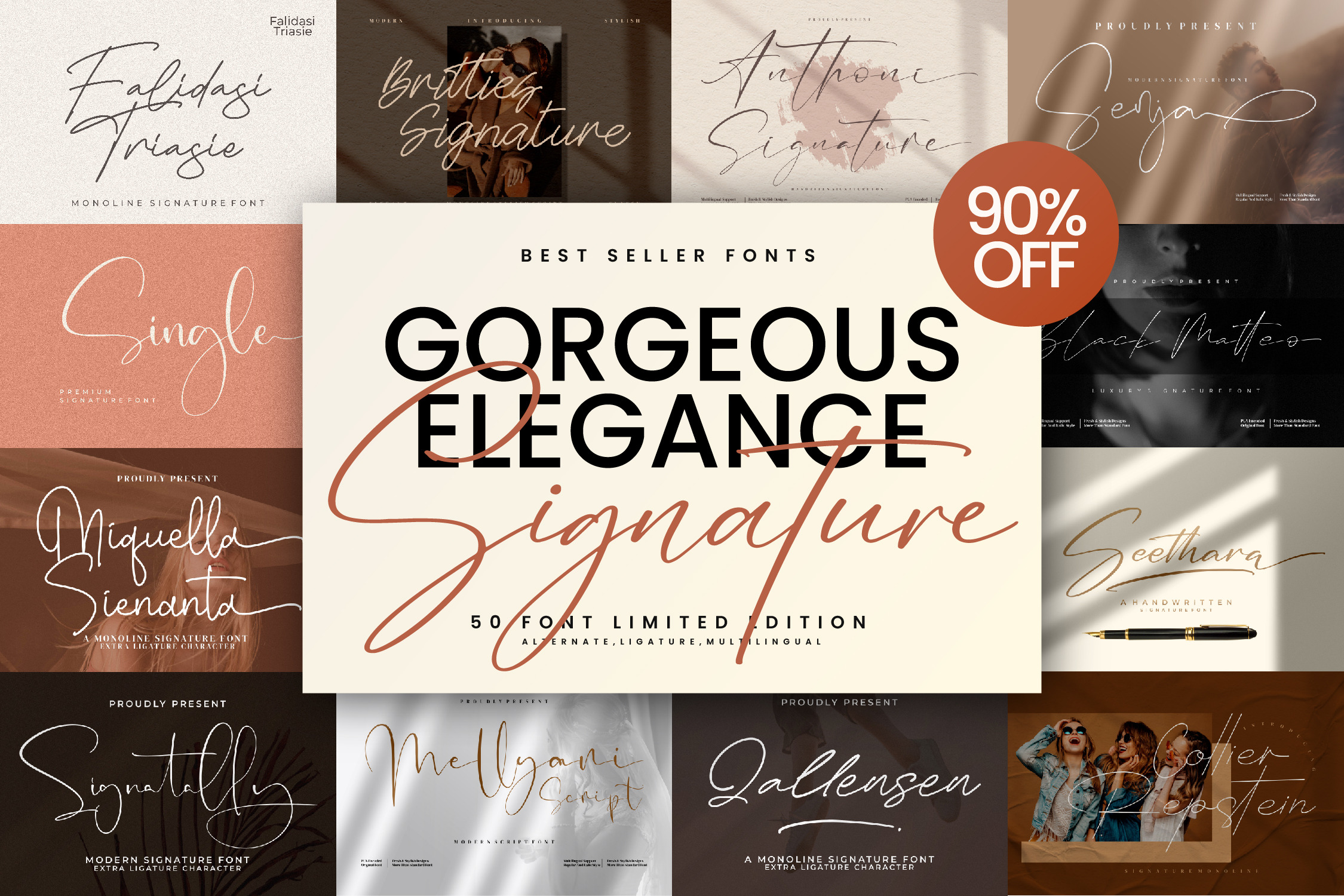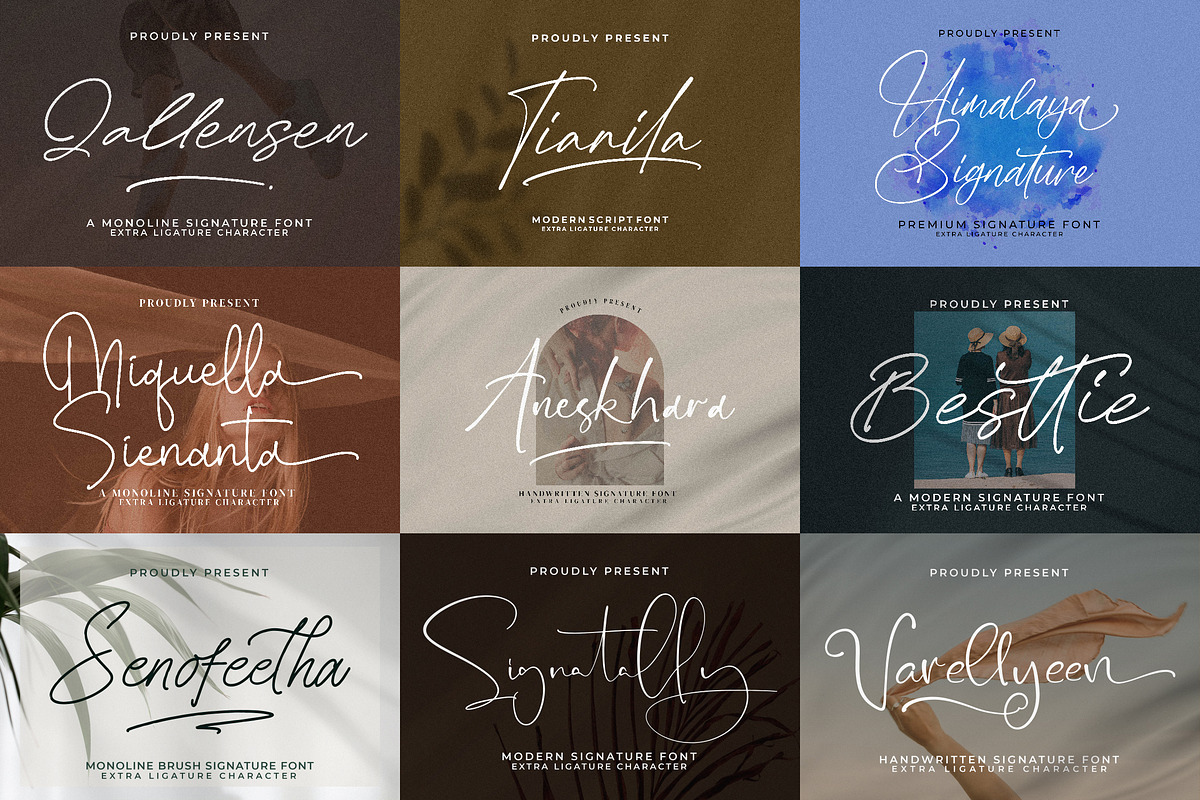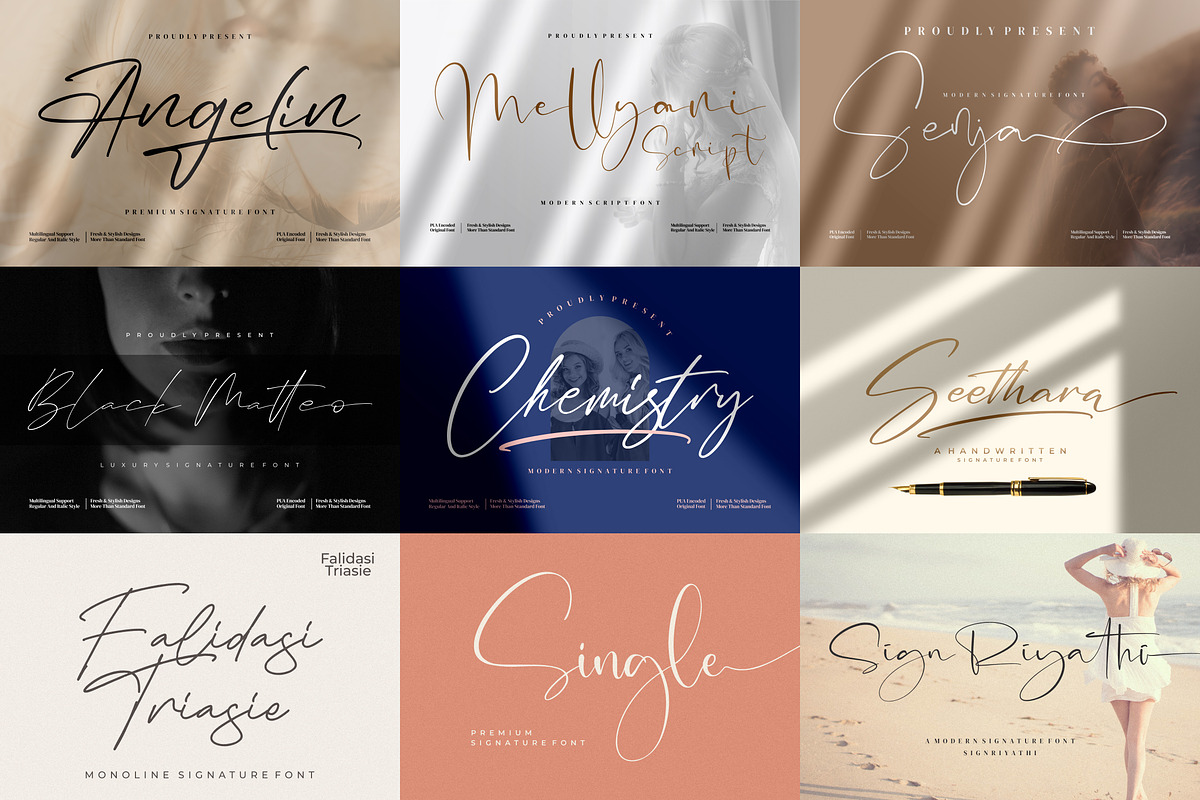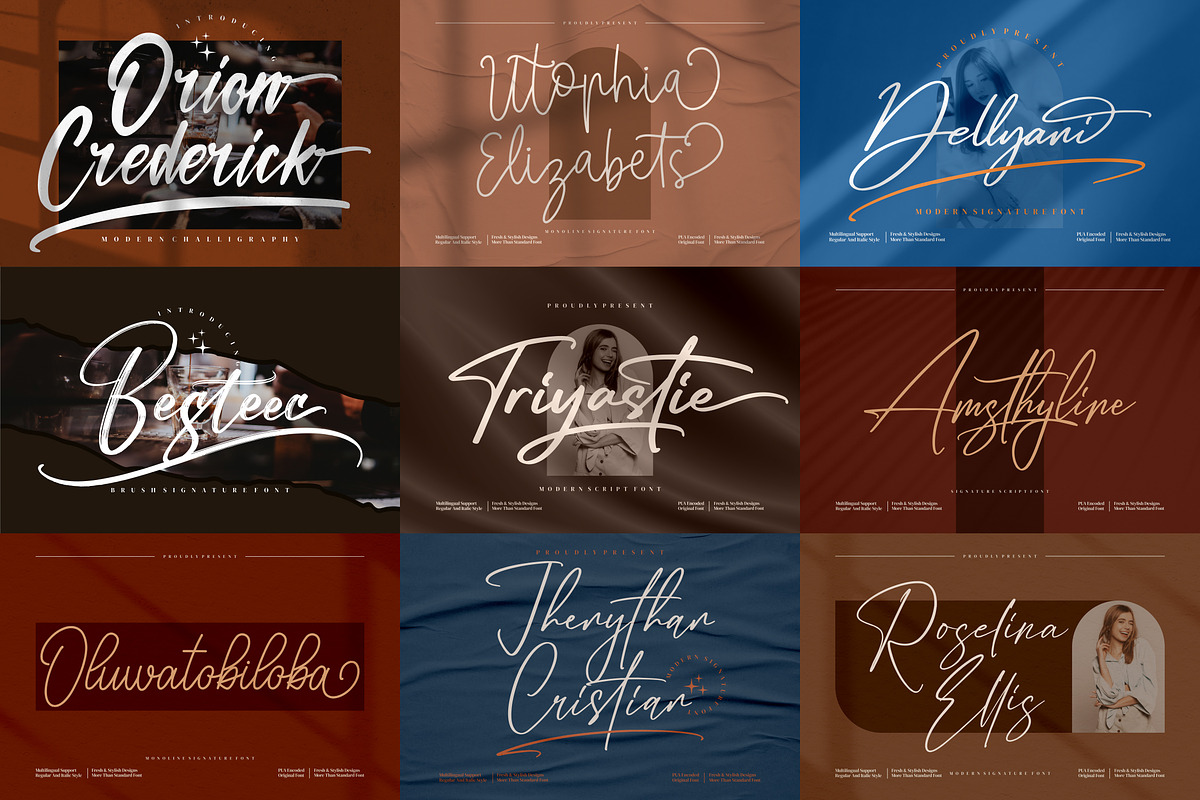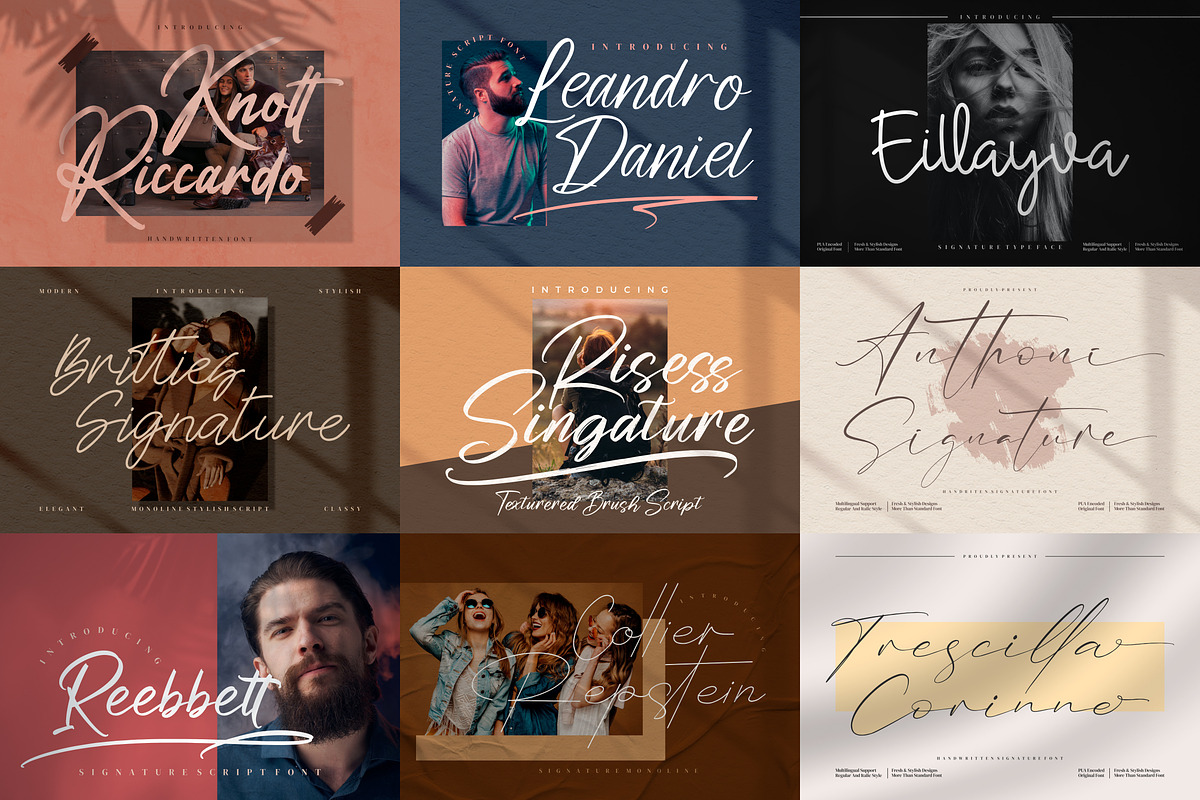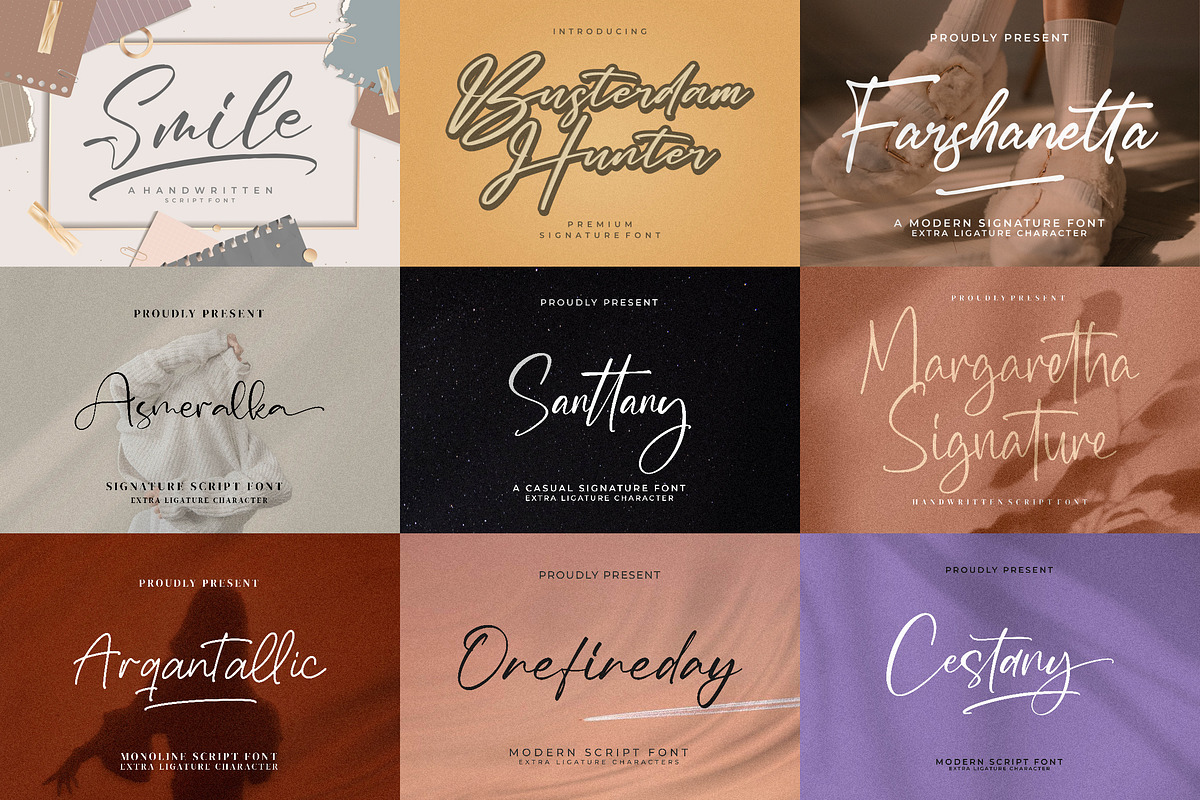
Gorgeous and Elegant Signature Font
Elevate your projects with our Gorgeous and Elegant Signature Font Bundle, a curated collection of stylish, handwritten fonts designed to exude sophistication and charm. Ideal for adding a personal, high-end touch to any creative endeavor.
Why You’ll Love This Bundle ✨ Elegant Handwritten Styles: Capture the beauty of natural handwriting with smooth, flowing strokes. ✨ Versatile Usage: Perfect for branding, wedding stationery, logos, social media, and more. ✨ Customization Ready: Features alternates, ligatures, and swashes for a truly unique look.
What’s Inside? 50 premium signature fonts Bonus swashes and design elements to complement your work Free updates and dedicated customer support Let your designs stand out with the perfect blend of beauty and elegance. Get the Gorgeous & Elegant Signature Font Bundle today and create something unforgettable!